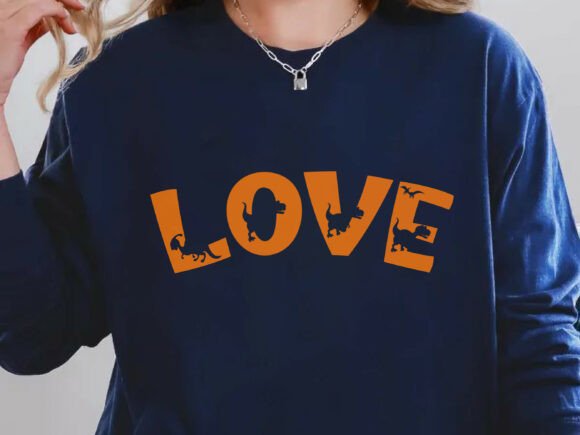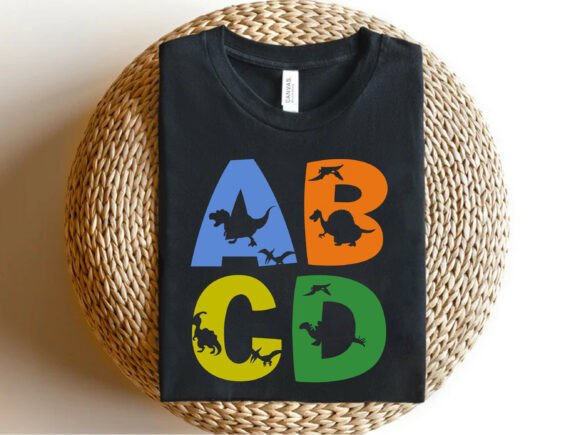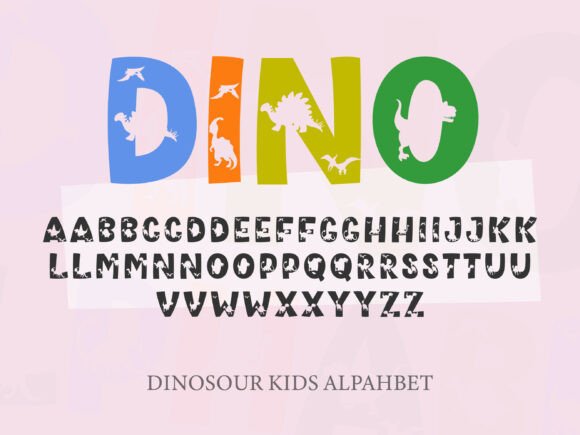
Unleash Your Creativity with the Dino Alphabet Font
Are you a designer, crafter, or educator looking for a unique and engaging way to add a touch of prehistoric adventure to your projects? Look no further than the Dino Alphabet Font! This creative display typeface is specifically crafted to bring a “ROAR” to children’s design projects, making it perfect for educational materials, nursery decor, and kids’ party invitations.
A Prehistoric Playground for the Imagination
The Dino Alphabet decorative font is a treasure trove of creative possibilities. Its bold, blocky letterforms serve as a canvas for charming dinosaur silhouettes, including favorites like the T-Rex and Stegosaurus. Each letter is meticulously designed to incorporate these prehistoric creatures, making it a complete storytelling tool for designers and educators.
Perfect for Educational Projects
The Dino Alphabet typeface is ideal for educational posters, nursery wall art, and birthday invitations that need a touch of Jurassic adventure. Imagine using this font to create engaging and interactive learning materials, such as alphabet charts, dinosaur fact sheets, or even a dinosaur-themed board game interface. The letters themselves become part of the play, making learning a fun and immersive experience for kids.
Design Possibilities are Endless
The versatility of the Dino Alphabet font is limitless. Use it to create custom t-shirt labels, dinosaur-themed party decorations, or even themed holiday packaging. For digital scrapbooking, this font adds a vibrant and playful element that stands out in any layout. The Dino Alphabet typeface pairs exceptionally well with simple, rounded sans-serif fonts that won’t compete with its intricate illustrative details.
Key Features of the Dino Alphabet Font
- Bold and Blocky Letterforms: The font features bold, blocky letterforms that serve as a canvas for charming dinosaur silhouettes.
- Dinosaur Silhouettes: Each letter incorporates dinosaur silhouettes, including favorites like the T-Rex and Stegosaurus.
- Complete Storytelling Tool: The font is a complete storytelling tool, perfect for educational posters, nursery wall art, and birthday invitations.
- Pairs Well with Sans-Serif Fonts: The font pairs exceptionally well with simple, rounded sans-serif fonts that won’t compete with its intricate illustrative details.
Tips for Using the Dino Alphabet Font
To get the most out of the Dino Alphabet font, here are a few design tips:
- Mix and Match with Other Fonts: Pair the Dino Alphabet font with simple, rounded sans-serif fonts to create a visually appealing contrast.
- Use for Headings and Titles: Use the font for headings and titles to add a touch of prehistoric adventure to your designs.
- Experiment with Colors and Textures: Experiment with different colors and textures to bring your designs to life.
The Dino Alphabet Font is a unique and engaging way to add a touch of prehistoric adventure to your design projects. With its bold, blocky letterforms and charming dinosaur silhouettes, this font is perfect for educational materials, nursery decor, and kids’ party invitations. Whether you’re a designer, crafter, or educator, the Dino Alphabet Font is sure to inspire your creativity and bring a “ROAR” to your designs.